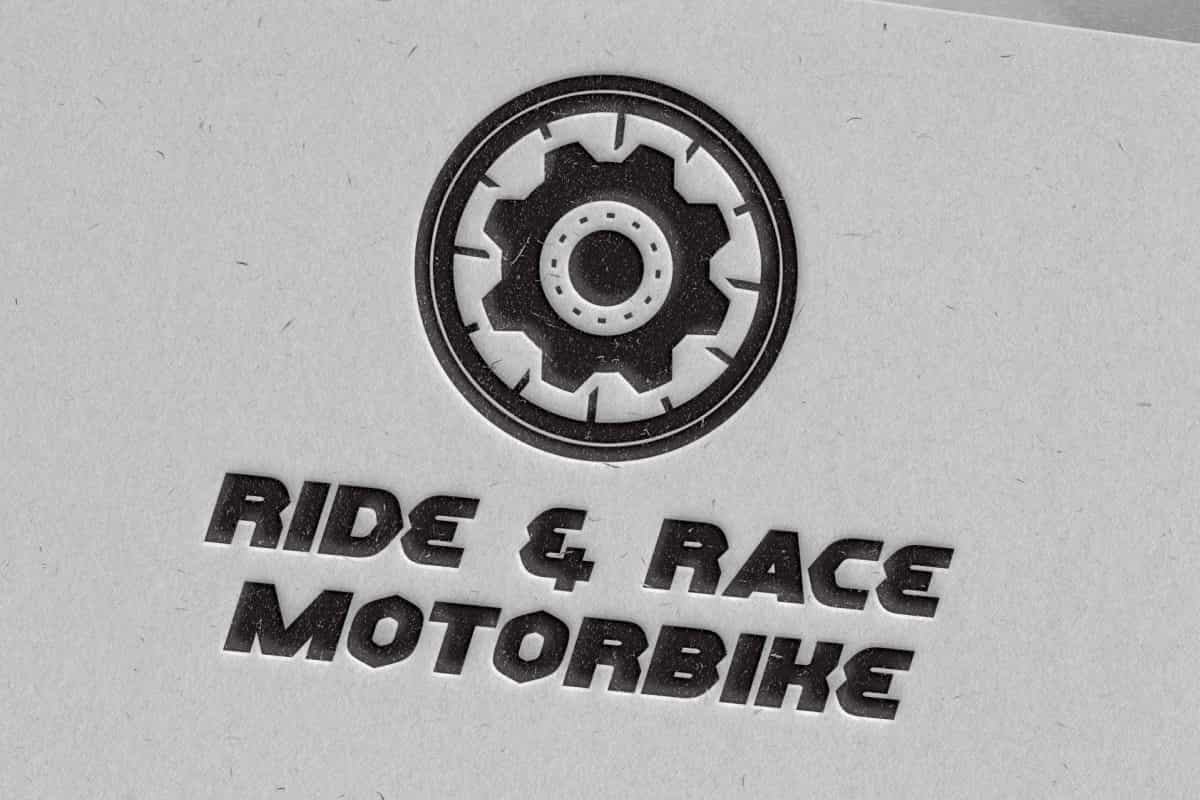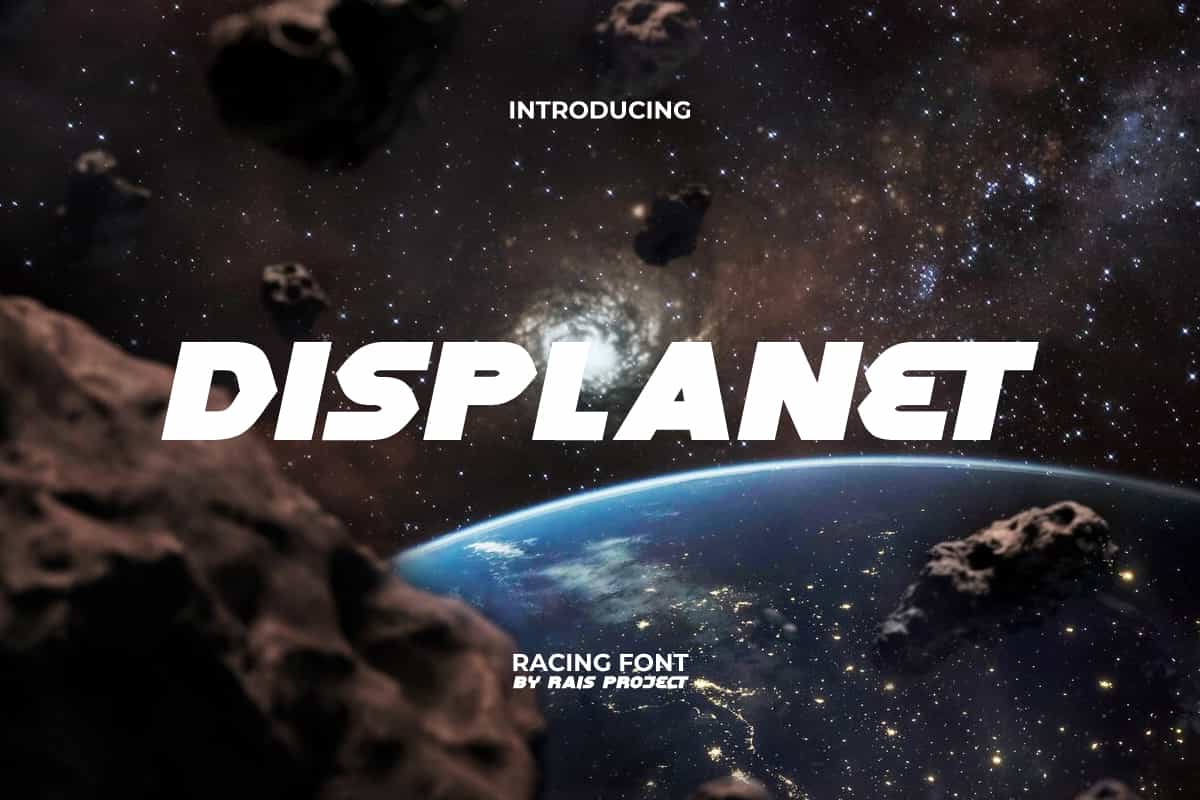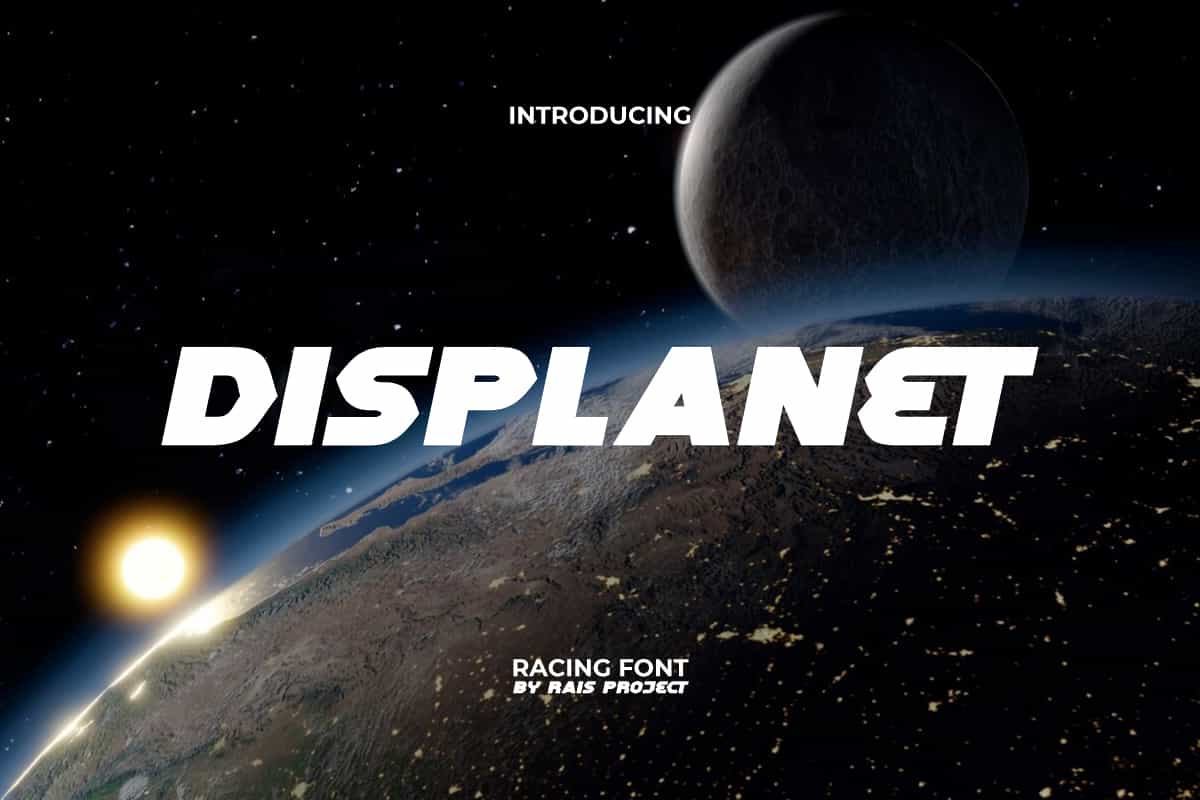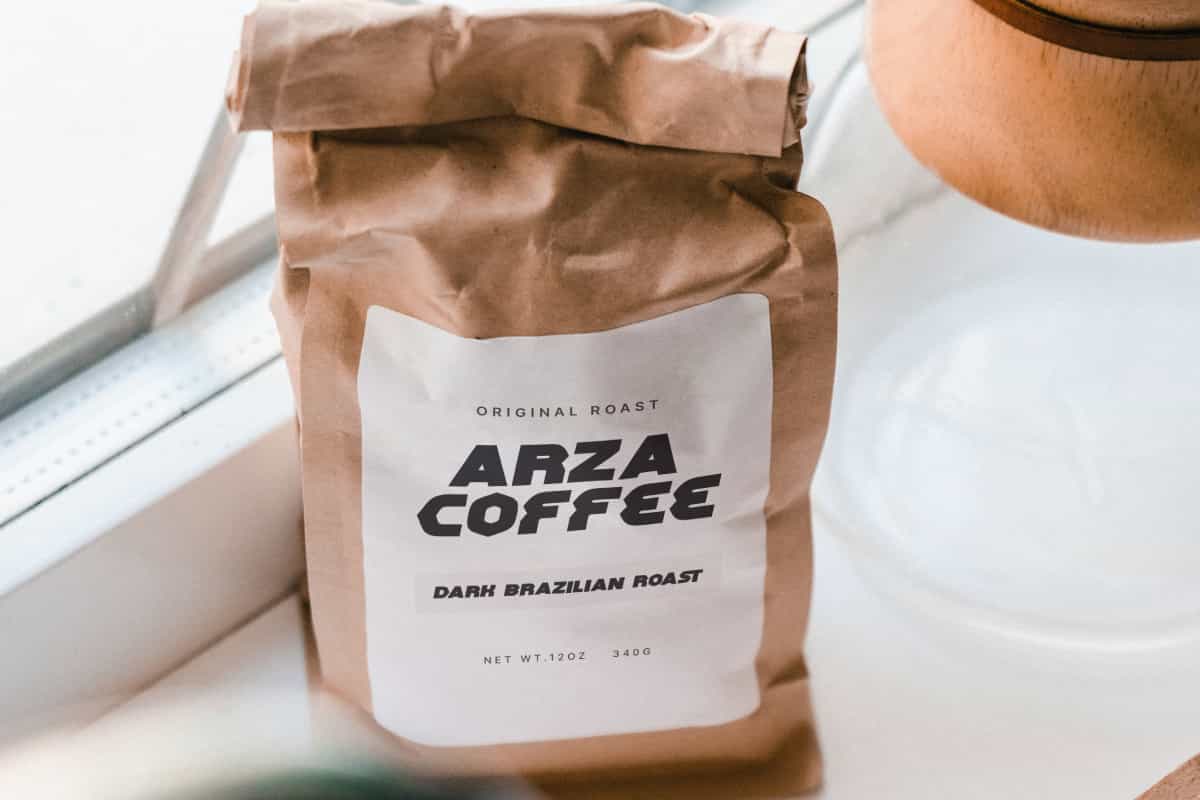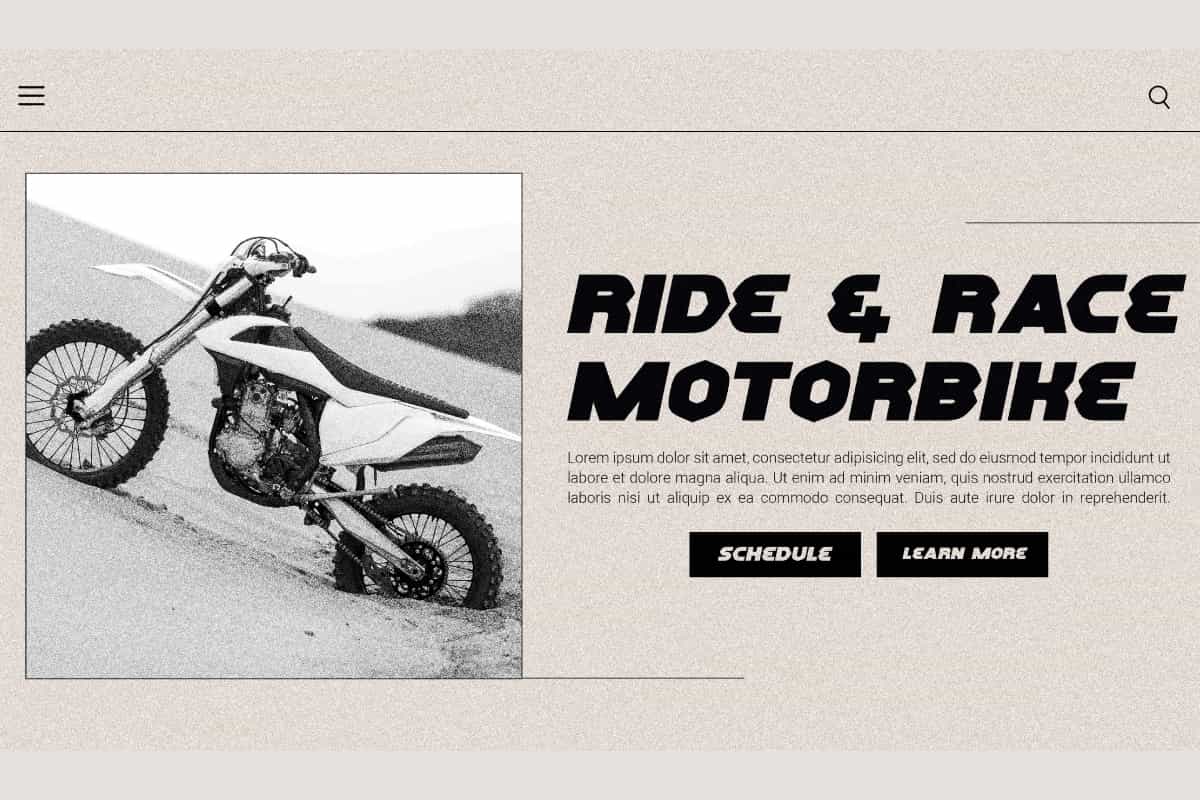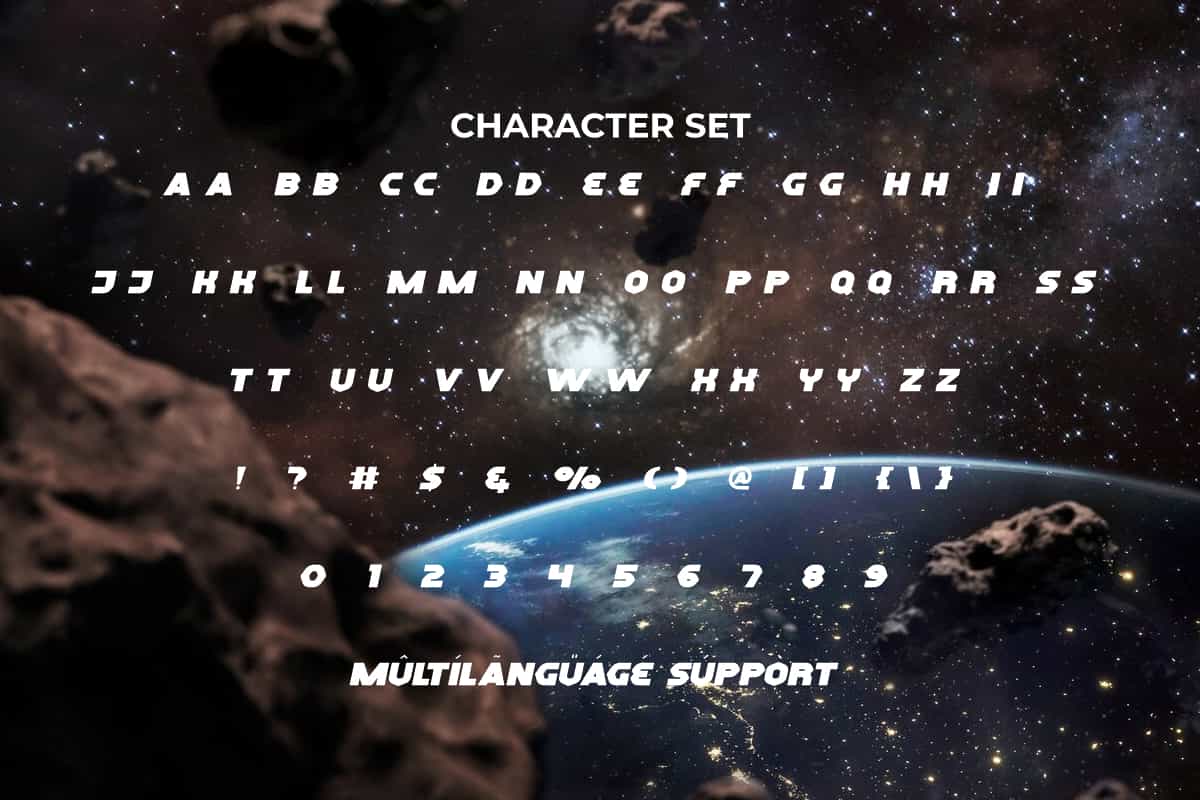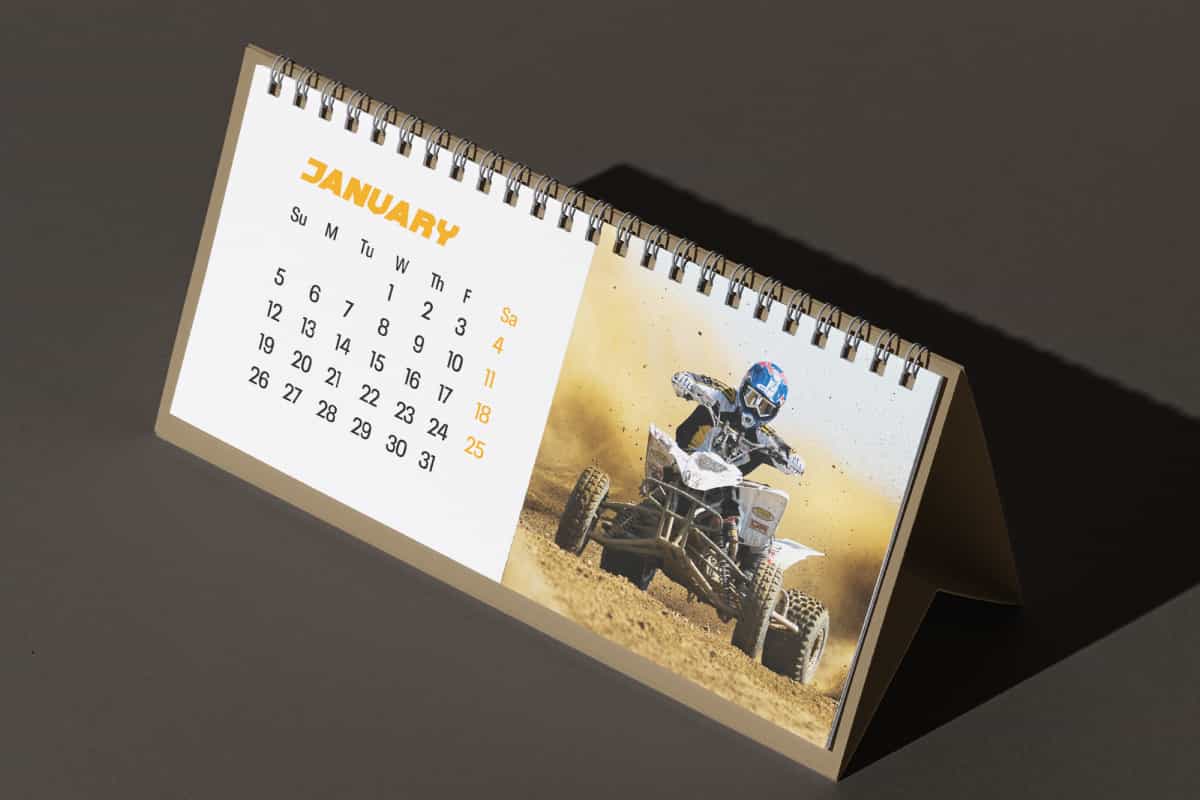
Displanet Display Font
Displanet Font is a modern and sporty racing display font. Use this font right now to make your design looks impressive!
Displanet Font is a bold and stylish display font with racing style, created by RaisProject. This font display can radiate a sense of confidence through its cool and easy-to-read font characters. It will be good for any designs, such as custom design, poster, signage, brand image, advertisement, website page, and more! You can see the demo font below, input any word you want so you can see what it looks like:
Displanet Font includes a full set of ALL CAPS for Uppercase and Lowercase Letters, Numerals, and large range of Punctuation. This attractive font will be suitable for various industries, such as automotive, sports, fashion, game, barber shop, cafe, event or festival, photography, printing, publishing, etc. What you get: